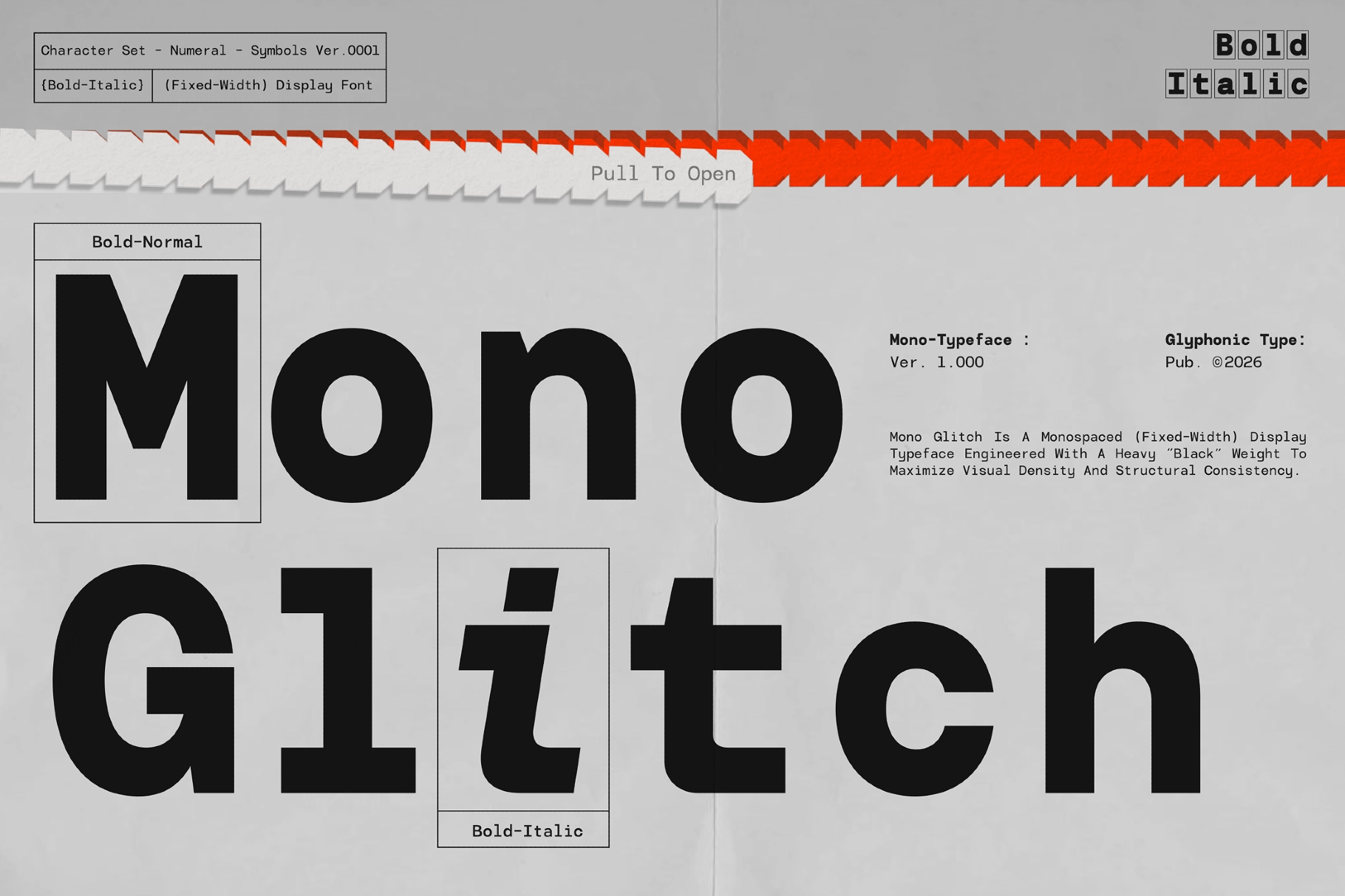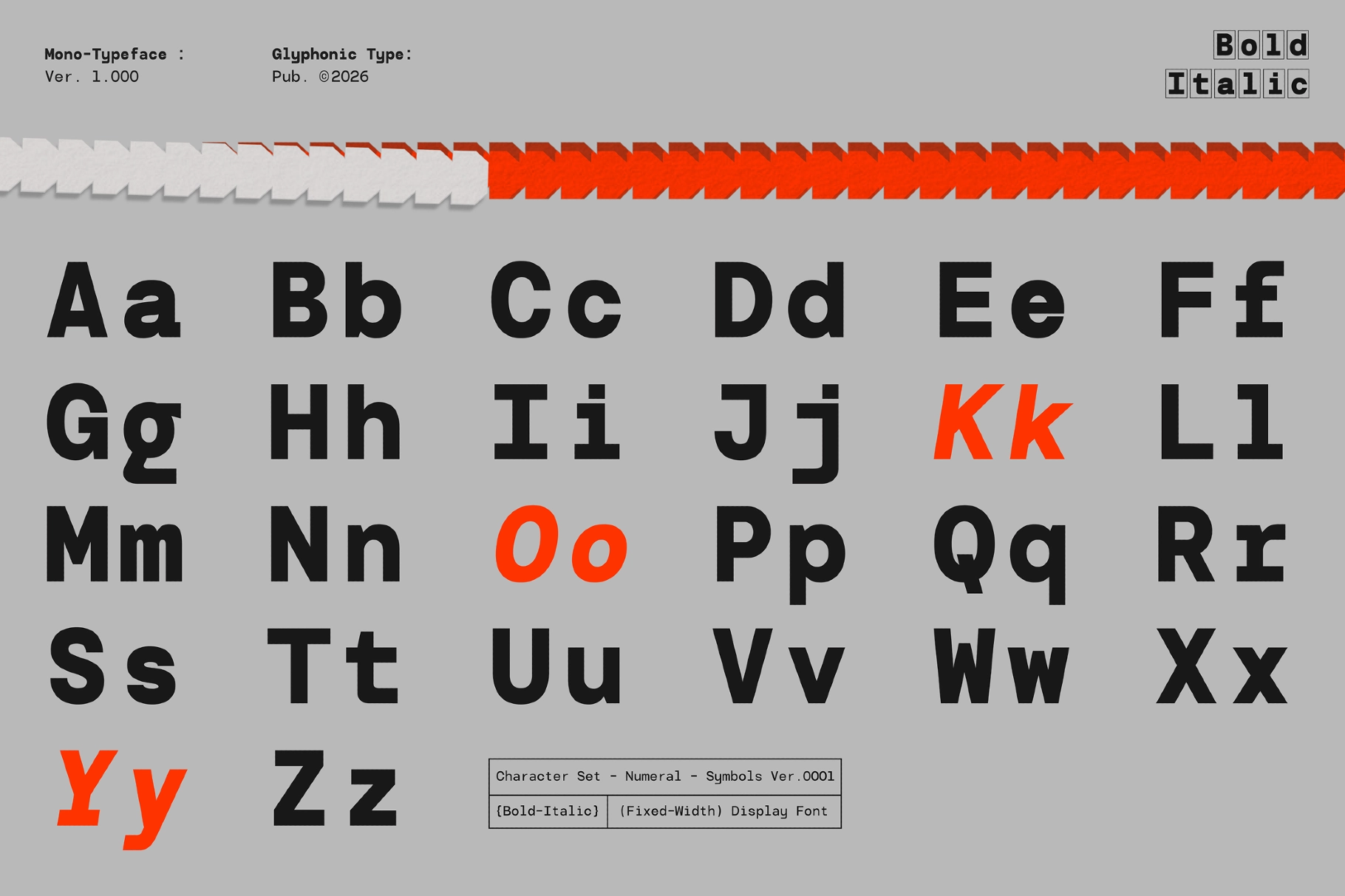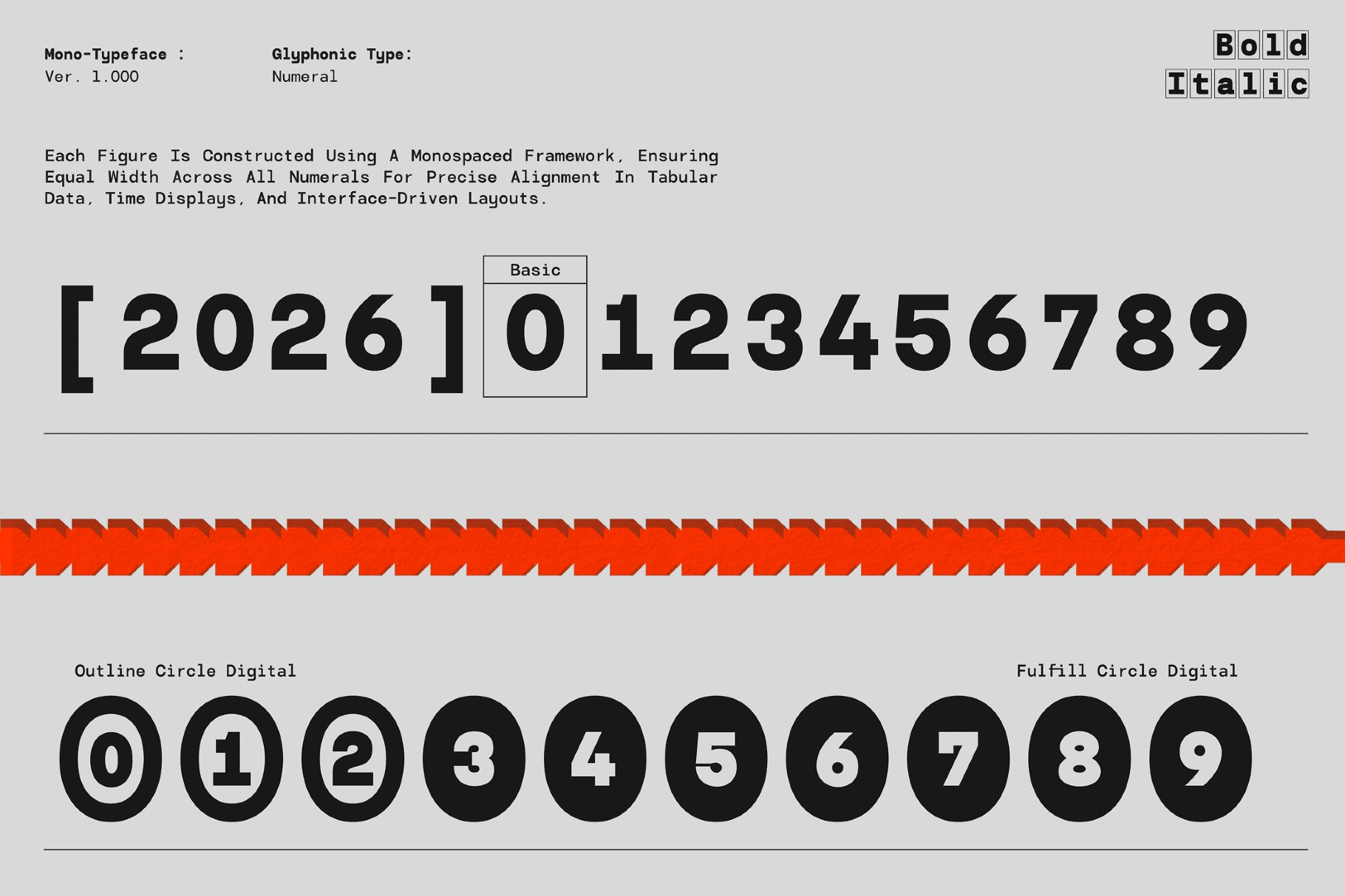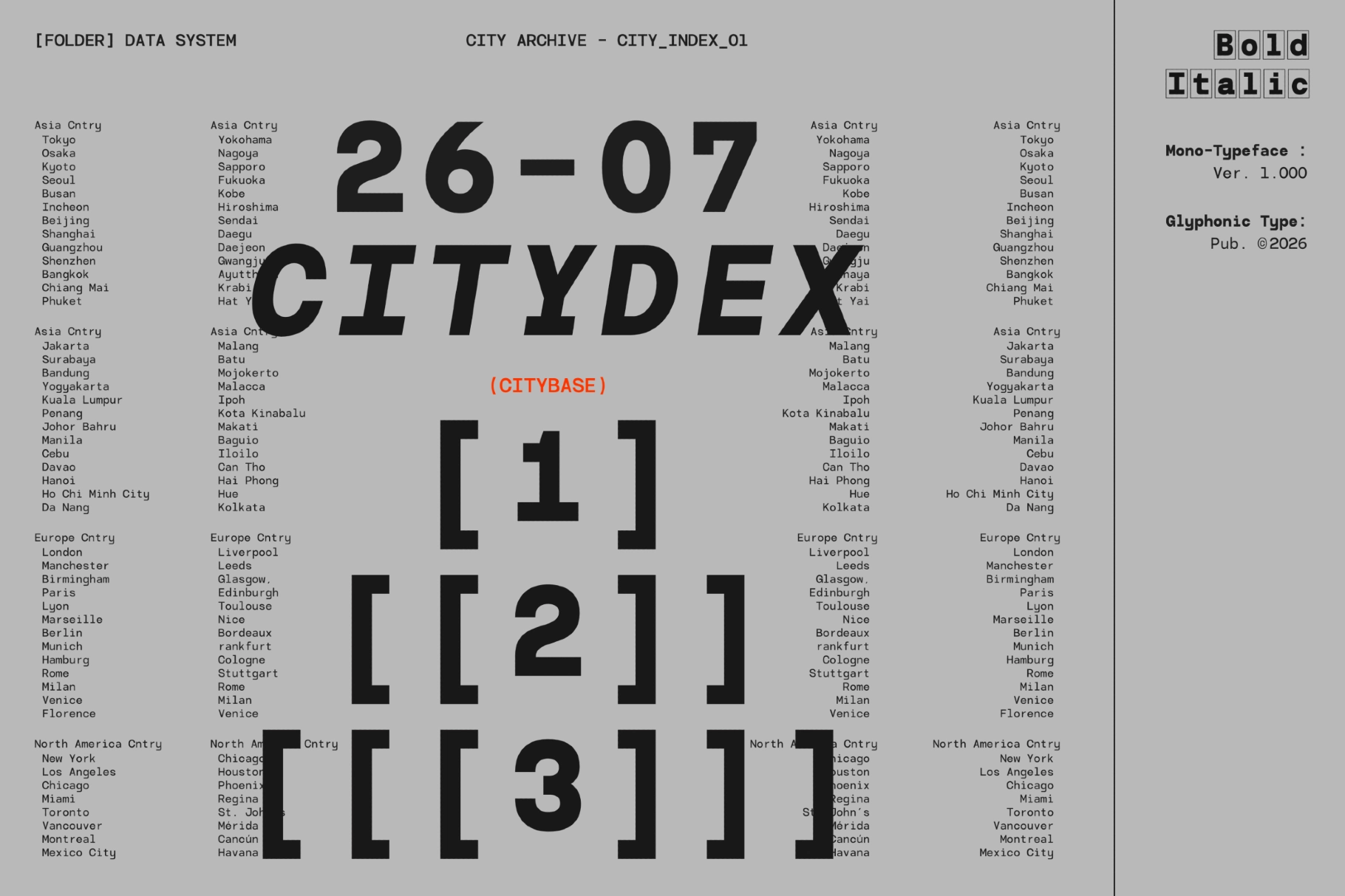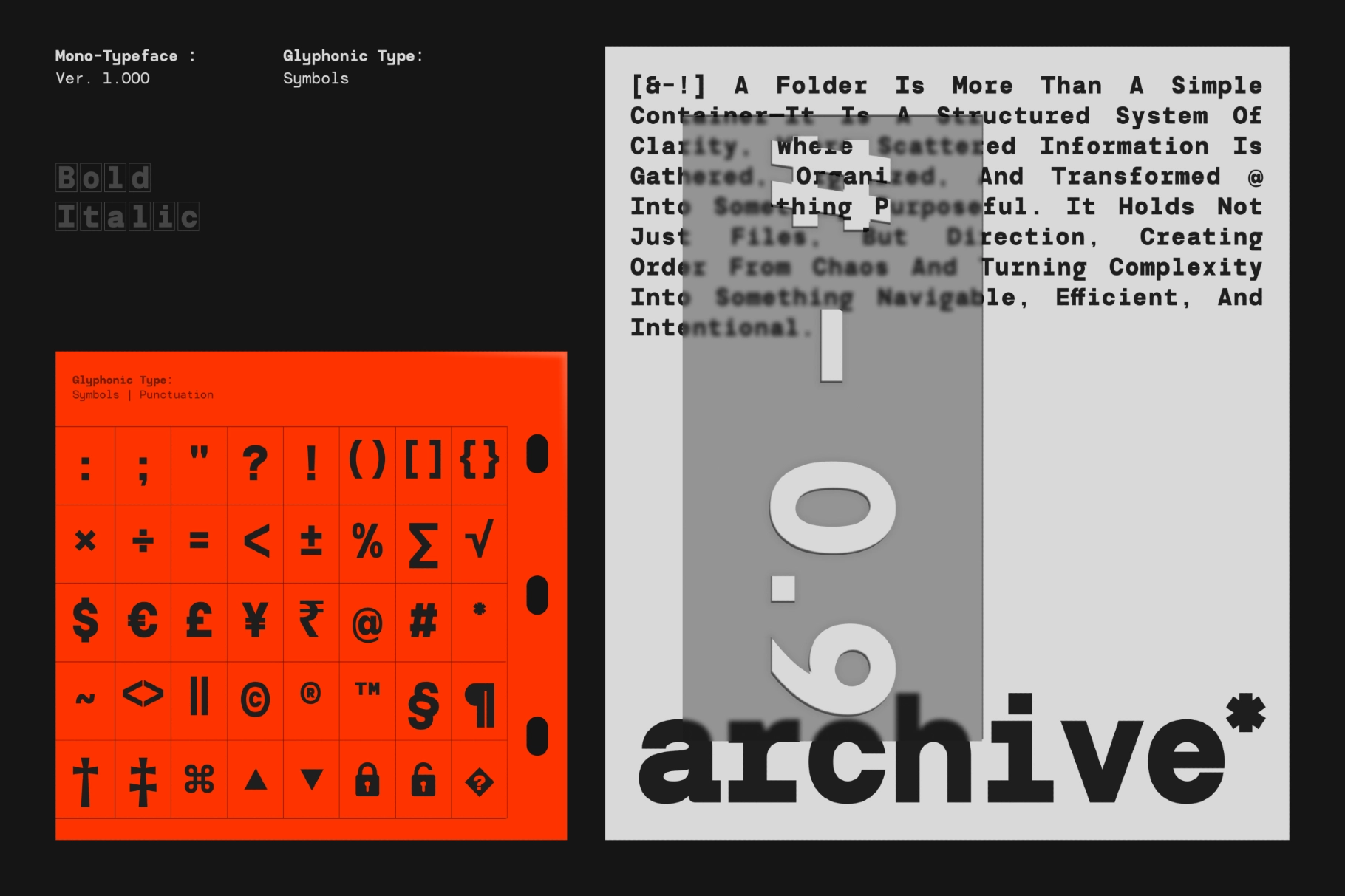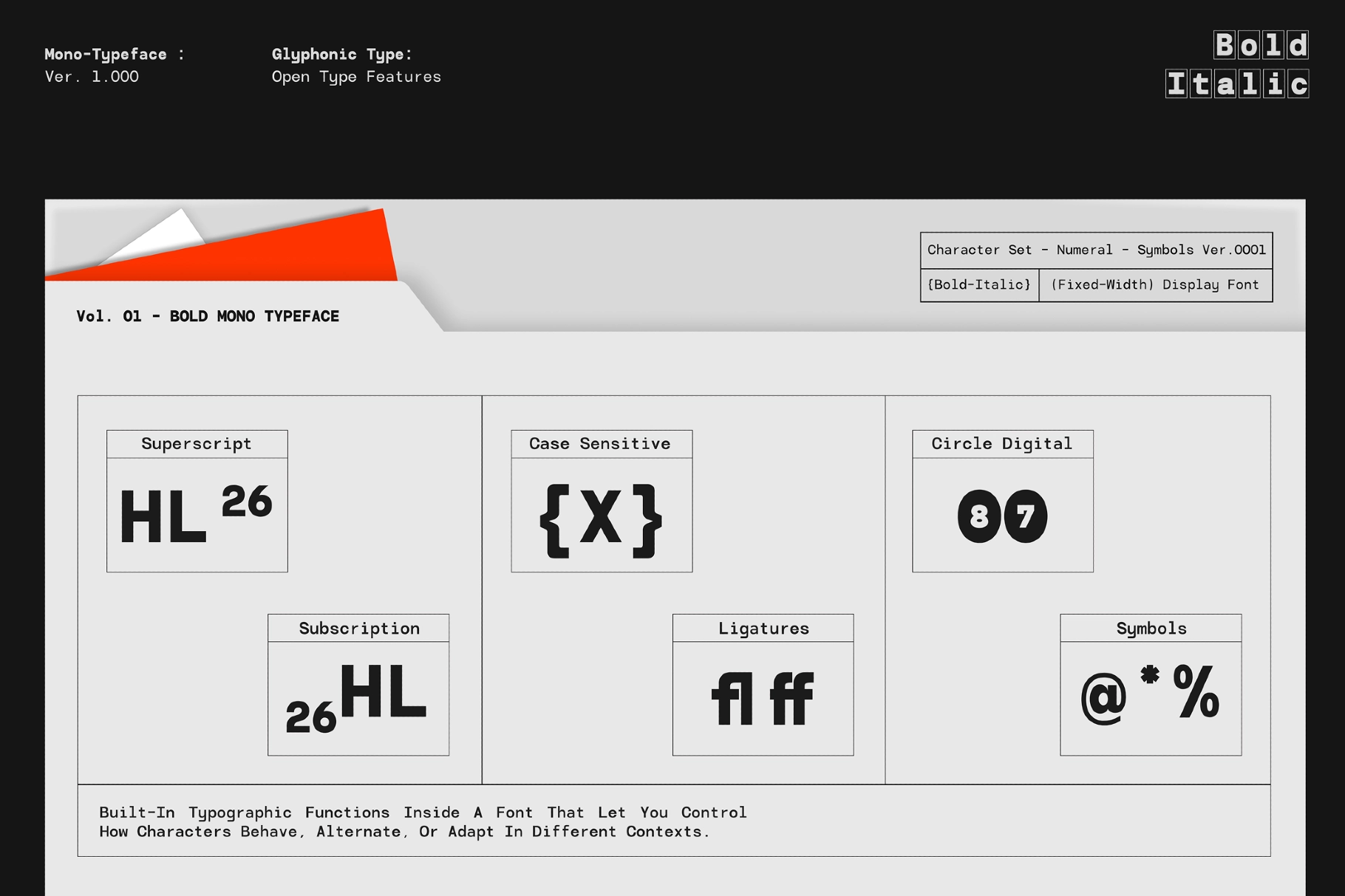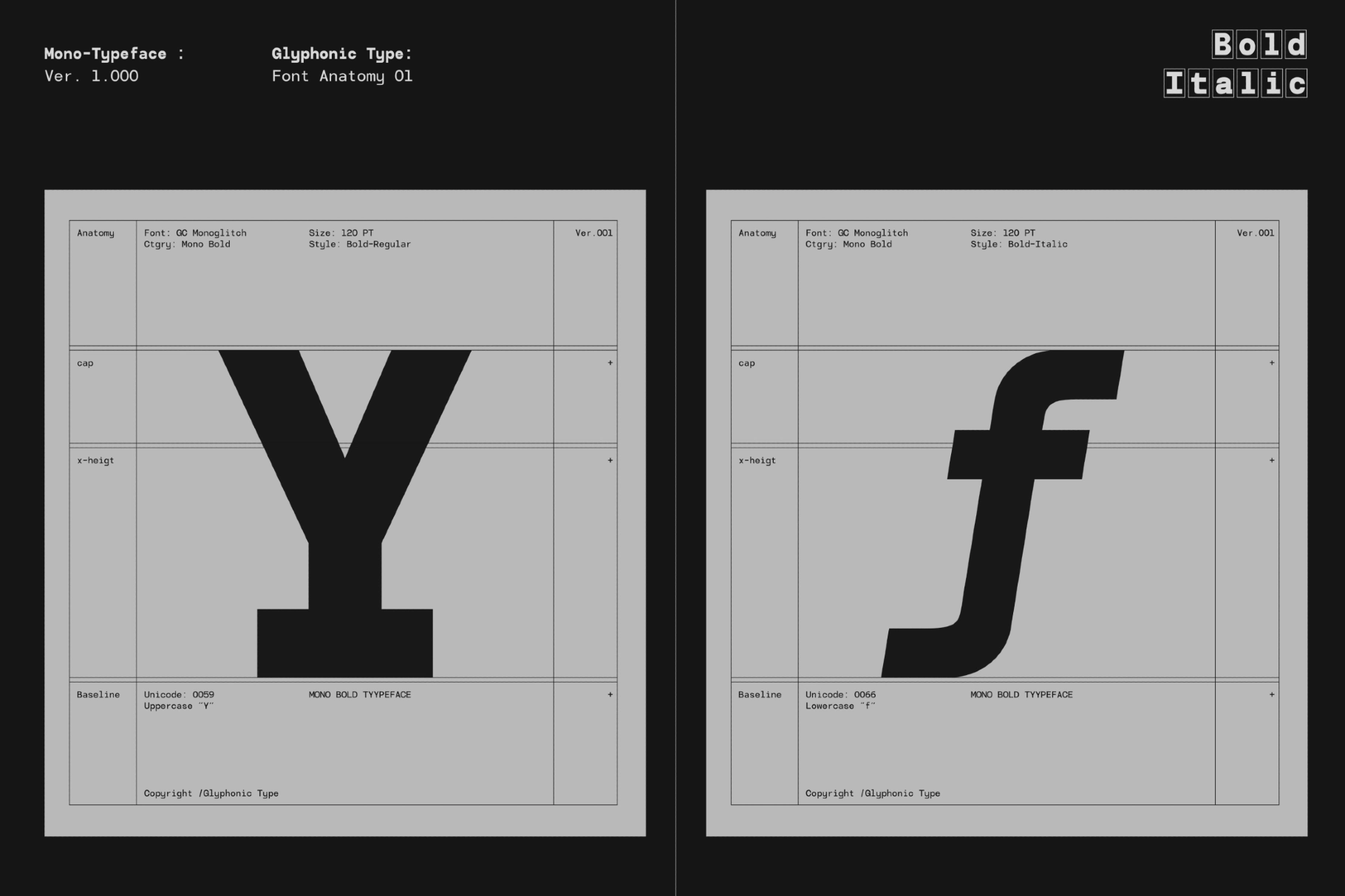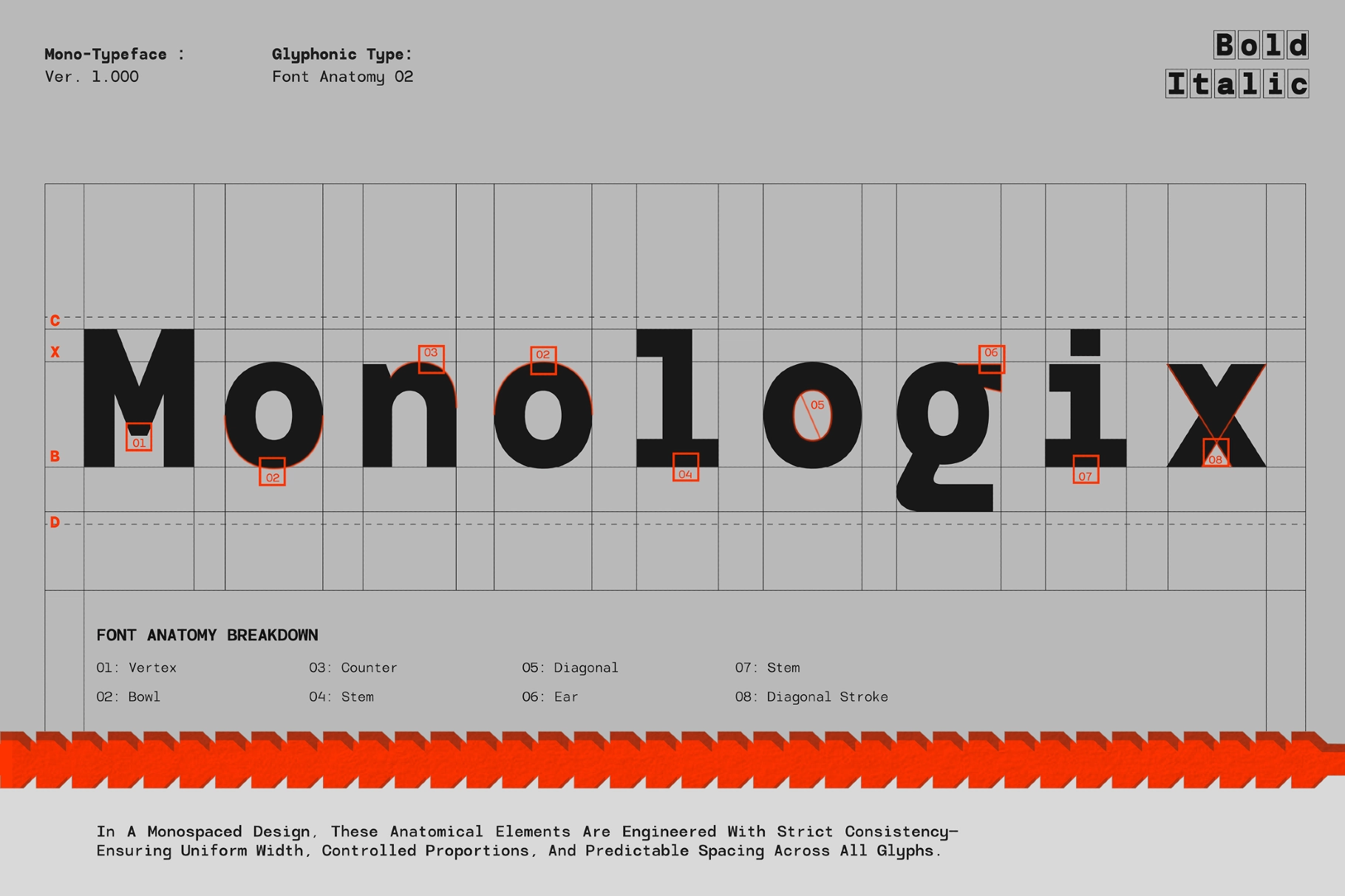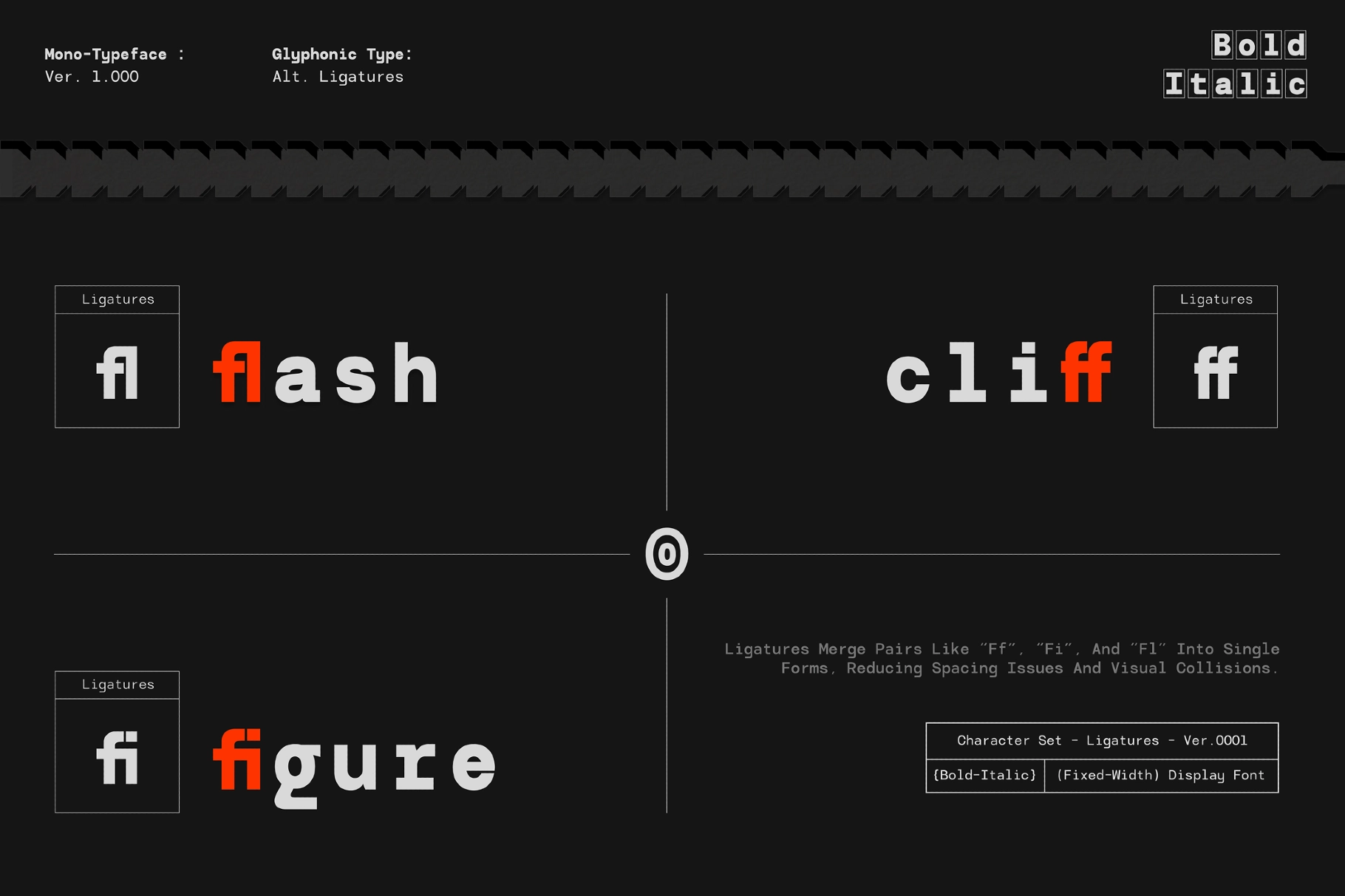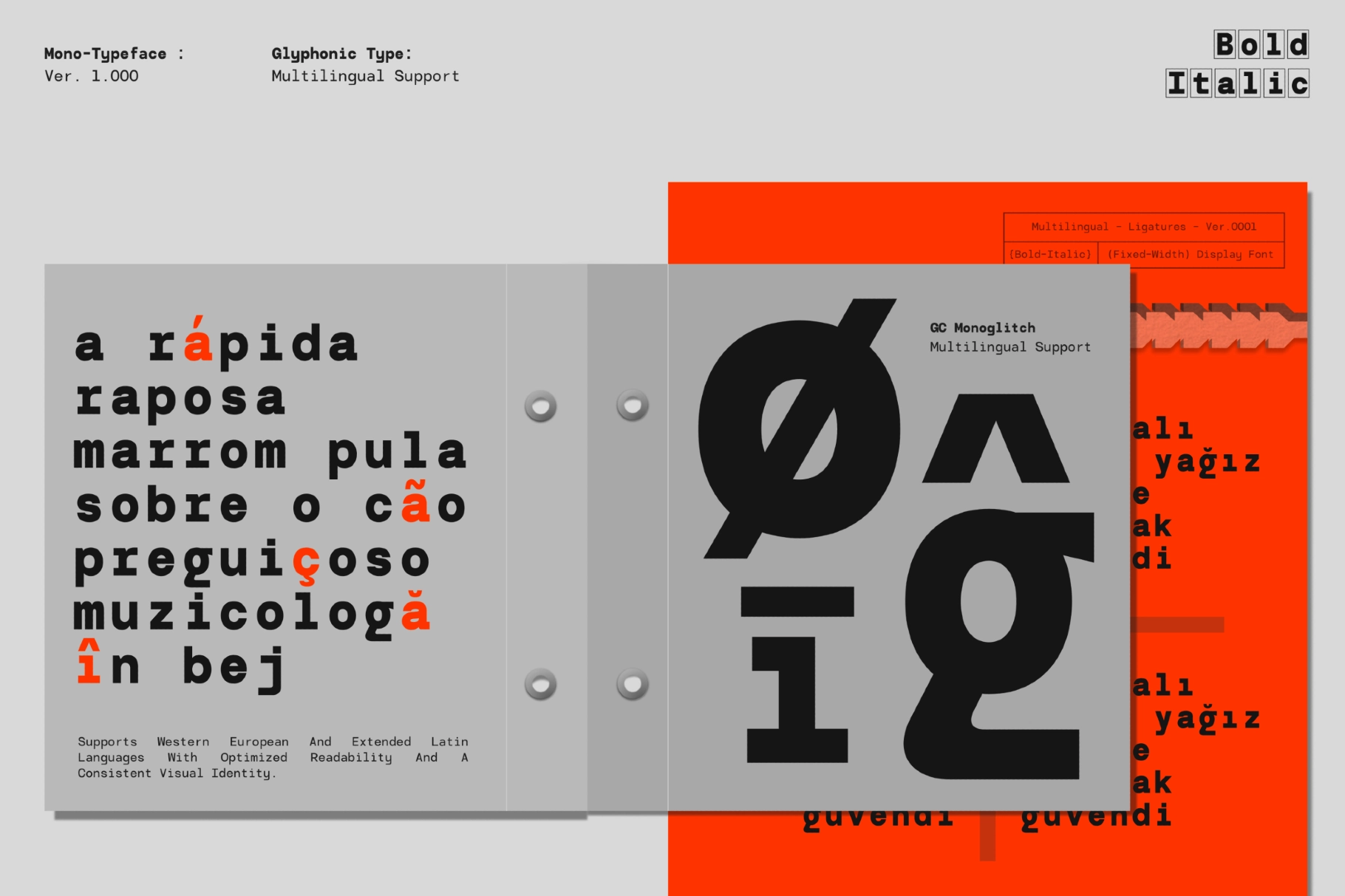
GC Monoglitch — Bold Tech Monospace Font
GC Monoglitch locks every character to the same fixed width, then pushes the weight up into a heavy, blocky construction — a fixed-width typewriter font built for readouts, terminals, and interface labels rather than paragraphs of prose.
The family runs six weights from Extra Light to Bold, so the same grid holds up whether it's setting dense data tables or oversized poster type. Use it for tech branding, coding-inspired graphics, UI labels, data displays, editorial tables, and poster headlines.
• 6 weights: Extra Light, Light, Regular, Medium, Semi Bold, Bold;
• Uppercase & lowercase;
• Numerals & punctuation;
• Ligatures & historical forms